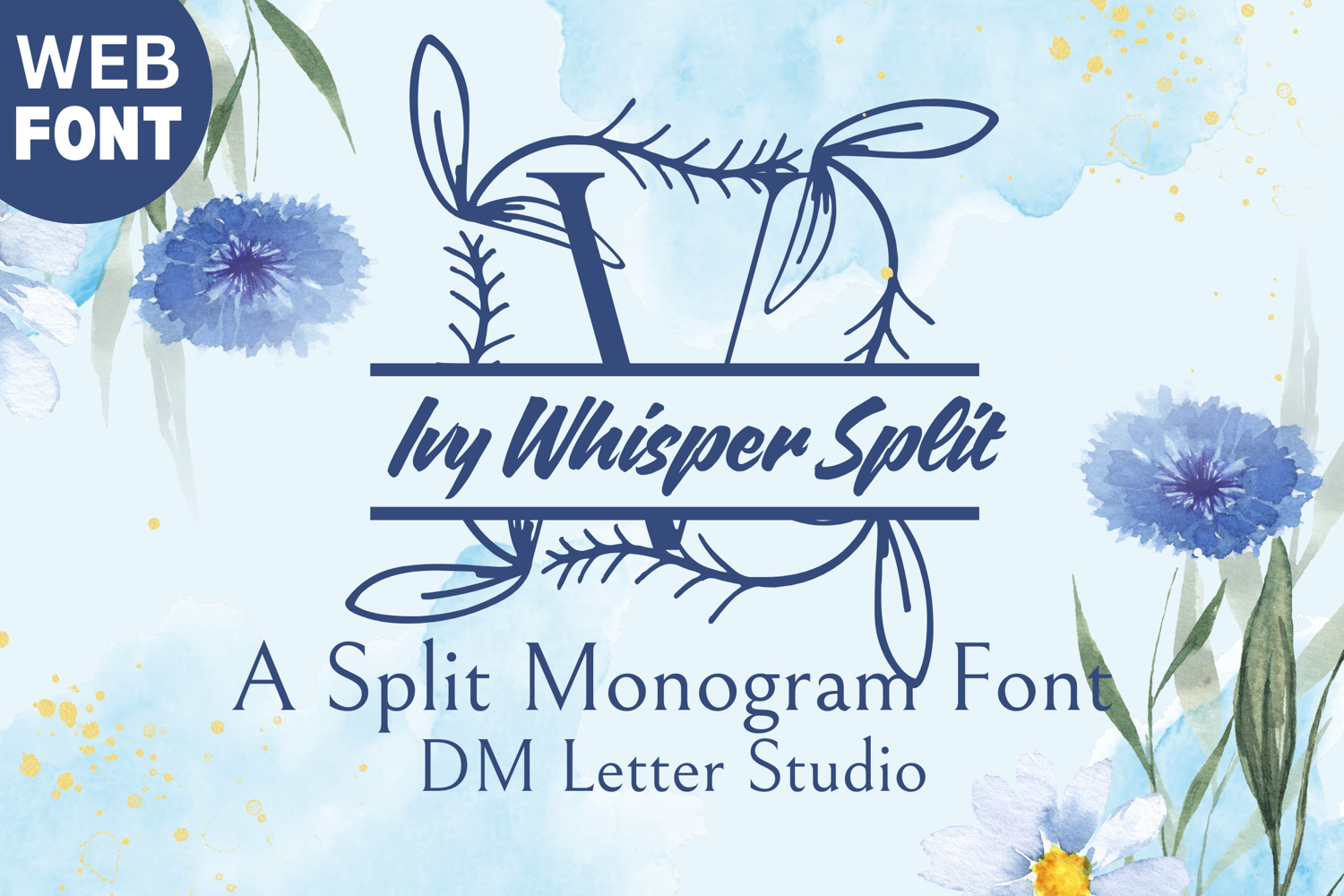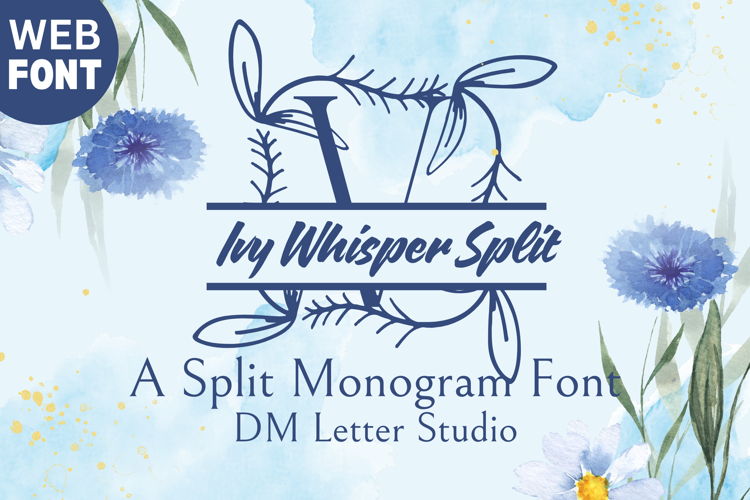
Ivy Whisper Split Monogram - Elegant Serif Split Monogram
Ivy Whisper Split Monogram – Elegant Serif Split Monogram with Ivy Accents
Ivy Whisper Split Monogram is a sophisticated serif font featuring a classic split monogram style adorned with graceful ivy vines. Designed for customization, each uppercase letter is divided horizontally to allow names or text while leafy embellishments gently wrap around the form, creating a balance of structure and organic beauty. Ideal for weddings, luxury gifts, and monogram-themed decor.
• Split Monogram Layout: Clean horizontal separation for easy customization with names or initials.
• Ivy-Inspired Flourishes: Botanical elements twine around each letter, bringing natural elegance.
• Classic Serif Foundation: Timeless serif shapes for legibility and refined appeal.
• Ideal For: Wedding signage, customized gifts, Cricut projects, premium branding, and floral monogram logos.